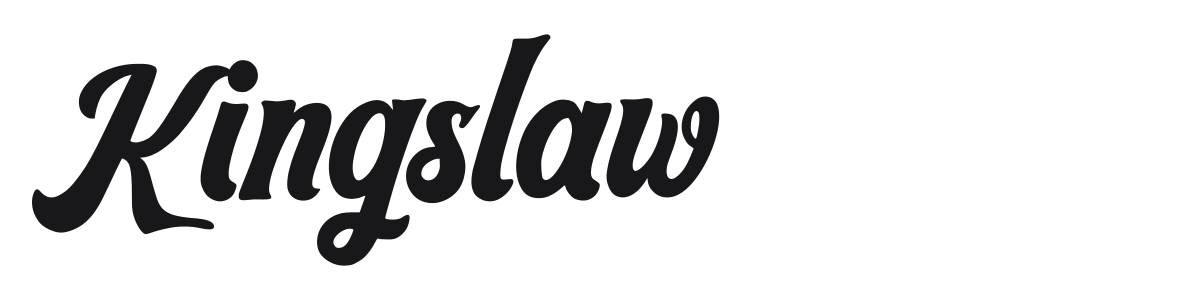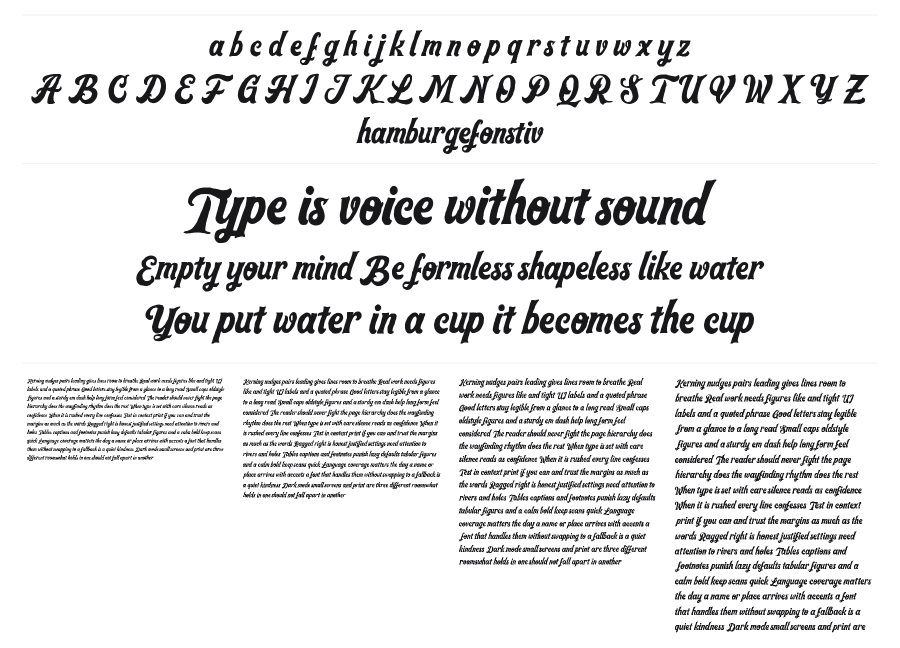
Kingslaw
Kingslaw is a heavy vintage display script with dramatic stroke contrast and bold, flowing connections. Its thick ink-trap joins and strong italic lean give it the energy of hand-lettered signage from the mid-century era. Well-suited to any project needing confident retro character at large sizes.